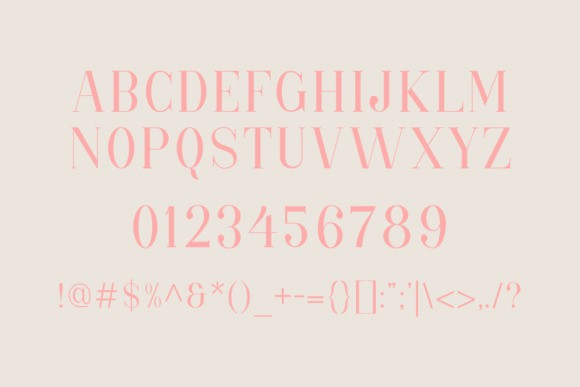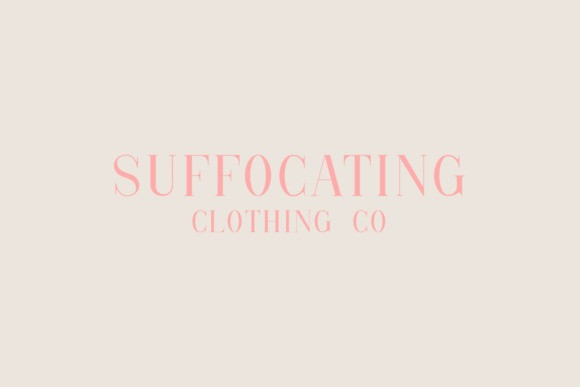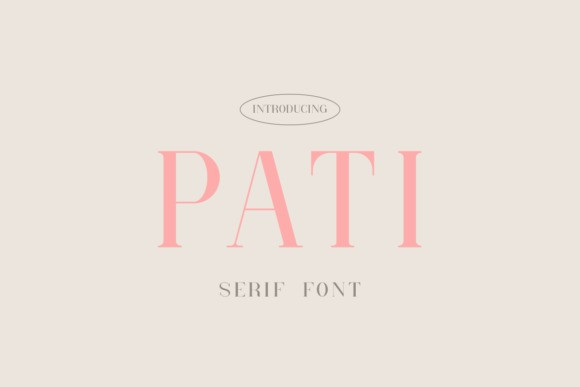
Pati Font
Pati Serif Font is a minimal and neat serif font. It’s a great match to various sets of projects, so add it to your creative ideas and notice how it makes them stand out!